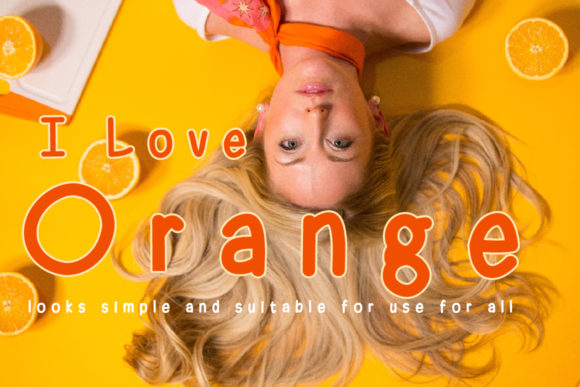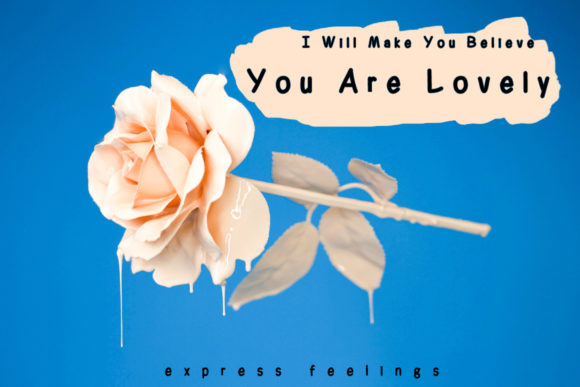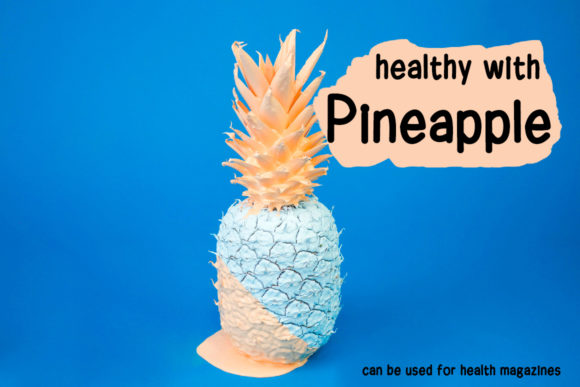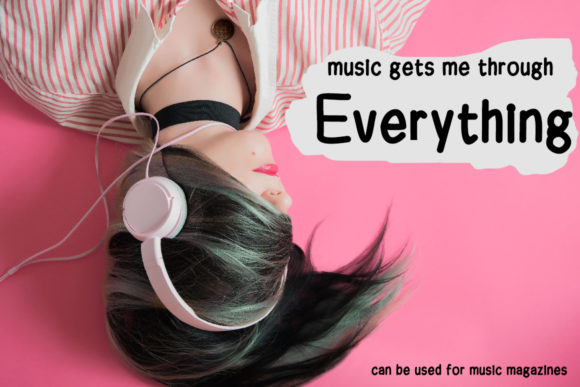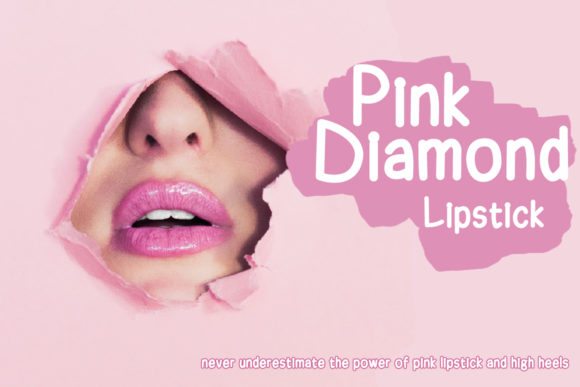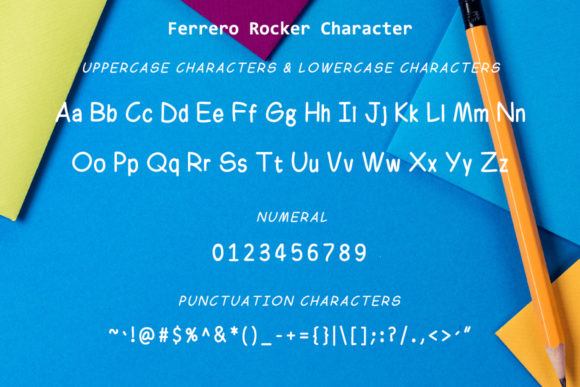
Ferrero Rocker Family Font: Elevate Your Designs with a Fun and Quirky Twist
Are you tired of using the same old fonts in your designs? Look no further than the Ferrero Rocker Family Font! This striking sans-serif font is perfect for adding a fun and quirky feel to your projects. With its versatile style and four unique styles to choose from, you can create multiple designs that are sure to stand out.
What is Ferrero Rocker Family Font?
The Ferrero Rocker Family Font is a sans-serif font that boasts a modern and edgy look. Its clean lines and bold strokes make it perfect for designs that require a bit of attitude. The font comes in four styles, which can be combined to create a wide range of unique designs. Whether you’re working on a magazine, poster, branding project, or website, this font is sure to add a touch of personality to your work.
Key Features of Ferrero Rocker Family Font
• Four Unique Styles: The Ferrero Rocker Family Font comes in four styles, which can be mixed and matched to create a wide range of designs.
• Versatile: This font is perfect for a variety of projects, including magazines, posters, branding, websites, t-shirt designs, phone cases, greeting cards, invitations, mugs, and more!
• Easy to Read: The clean lines and bold strokes of the Ferrero Rocker Family Font make it easy to read, even at small sizes.
• Fun and Quirky: This font is perfect for designs that require a bit of personality and whimsy.
Uses for Ferrero Rocker Family Font
The Ferrero Rocker Family Font is incredibly versatile, making it perfect for a wide range of projects. Here are some ideas to get you started:
• Magazines: Use the Ferrero Rocker Family Font to add a touch of personality to your magazine layouts.
• Posters: Create eye-catching posters with this font’s bold and modern look.
• Branding: Use the Ferrero Rocker Family Font to create a unique and memorable brand identity.
• Websites: Add a touch of whimsy to your website designs with this font’s fun and quirky style.
• T-Shirt Designs: Create custom t-shirt designs that are sure to stand out with the Ferrero Rocker Family Font.
• Phone Cases: Use this font to create custom phone cases that are both fun and functional.
• Greeting Cards: Add a touch of personality to your greeting cards with the Ferrero Rocker Family Font.
• Invitations: Create custom invitations that are sure to impress with this font’s modern and edgy look.
• Mugs: Use the Ferrero Rocker Family Font to create custom mugs that are perfect for gifts or personal use.
Tips for Using Ferrero Rocker Family Font
Here are some tips for getting the most out of the Ferrero Rocker Family Font:
• Experiment with Different Styles: Don’t be afraid to try out different styles of the Ferrero Rocker Family Font to find the one that works best for your project.
• Use it with Other Fonts: The Ferrero Rocker Family Font pairs well with other fonts, so don’t be afraid to experiment with different combinations.
• Play with Size and Color: The Ferrero Rocker Family Font looks great in a variety of sizes and colors, so don’t be afraid to get creative!